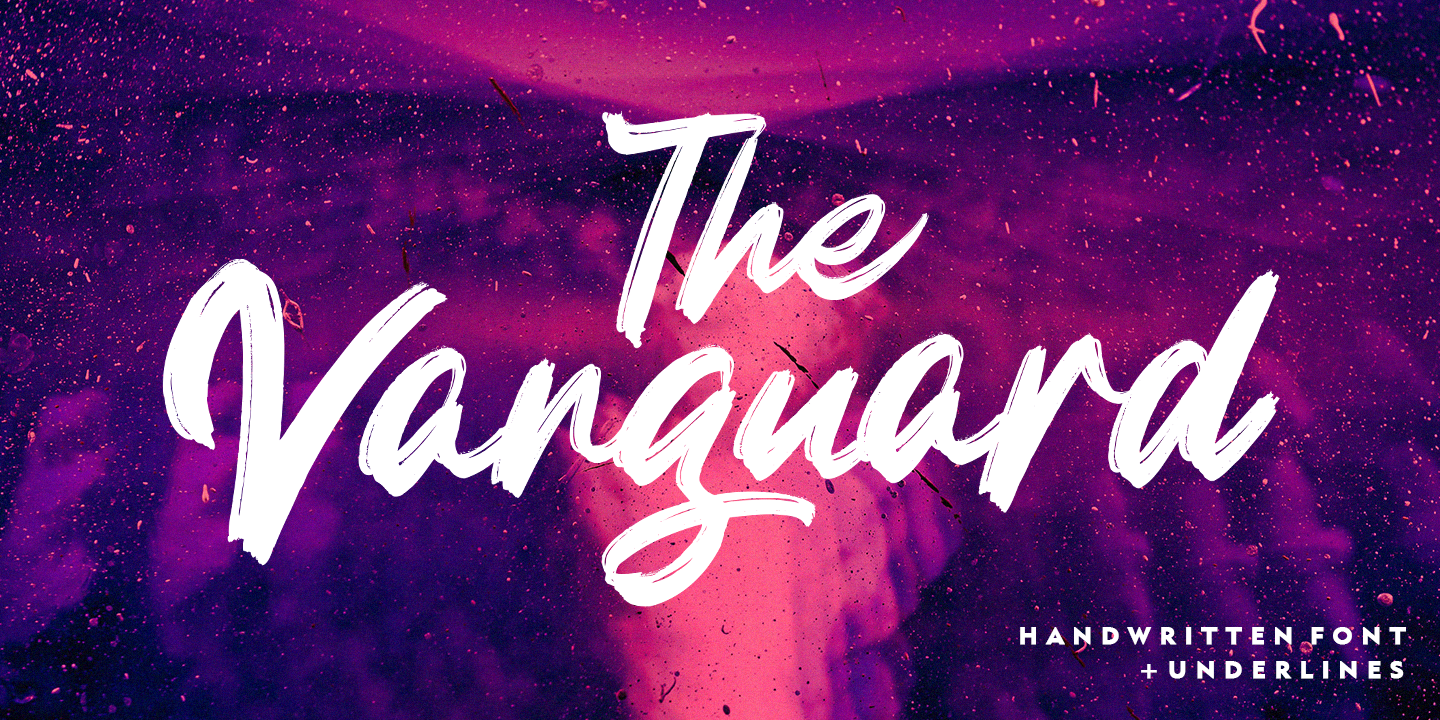
The Vanguard Font is perfect for cutting-edge technology branding, innovative startup logos, futuristic gaming graphics, progressive corporate identities, avant-garde magazine layouts, modern architectural signage, revolutionary product packaging, and forward-thinking digital campaigns. This bold typeface excels in pioneering design applications, disruptive brand communications, and any project requiring authoritative leadership aesthetics that command attention and respect.
What makes The Vanguard Font exciting is its powerful ability to convey innovation leadership and progressive thinking through commanding letterforms that establish immediate authority and forward momentum. The font features strong, confident character shapes with cutting-edge design elements that communicate breakthrough thinking and industry leadership, making it ideal for brands seeking to position themselves as market pioneers and thought leaders. Its commanding presence ensures memorable brand recognition across competitive markets.
The Vanguard Font family includes multiple weights and styles: Regular, Bold, Light, Medium, Italic variations, and extended versions for maximum impact applications. Each family member maintains the distinctive leadership character while offering comprehensive typography solutions for complex corporate communications, from authoritative body text to commanding headlines that establish market dominance and innovative credibility.
Whether you're designing breakthrough technology brands or creating revolutionary marketing campaigns, The Vanguard Font Free Download provides the perfect typography solution for leadership-focused branding needs. This font transforms ordinary text into powerful leadership statements that communicate innovation and market authority. Industry pioneers and disruptive brands choose this typeface for its ability to convey cutting-edge leadership through confidently crafted letterforms that inspire trust in revolutionary approaches.